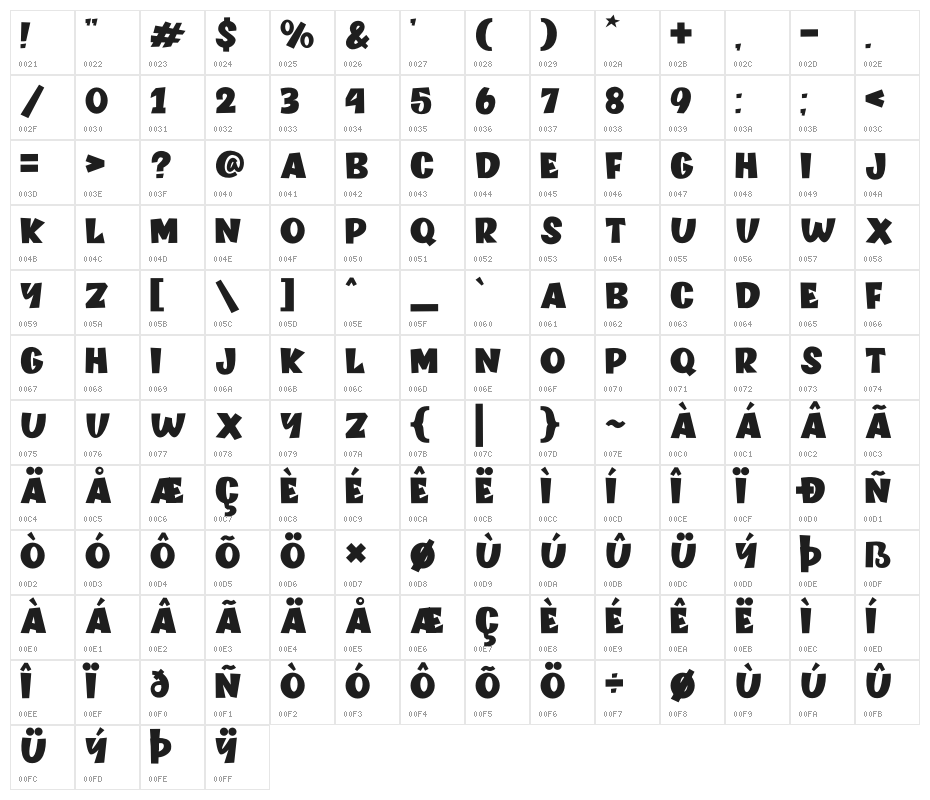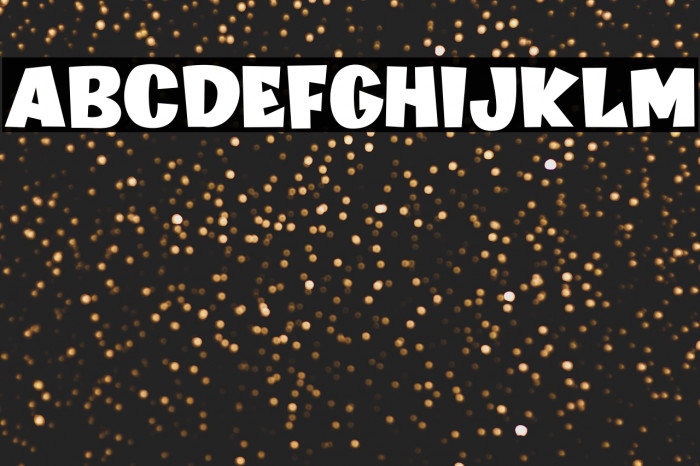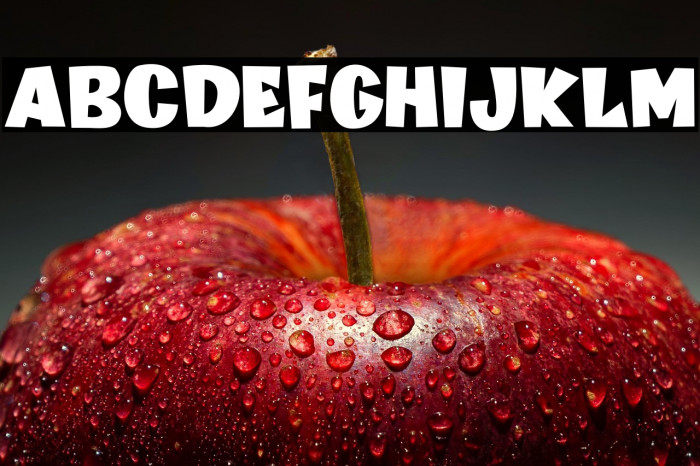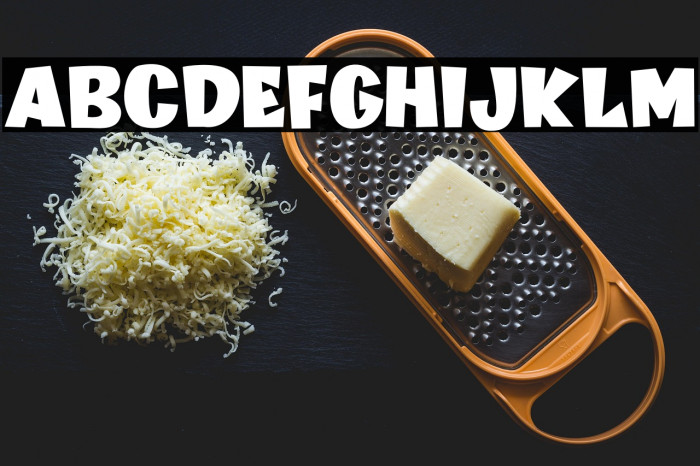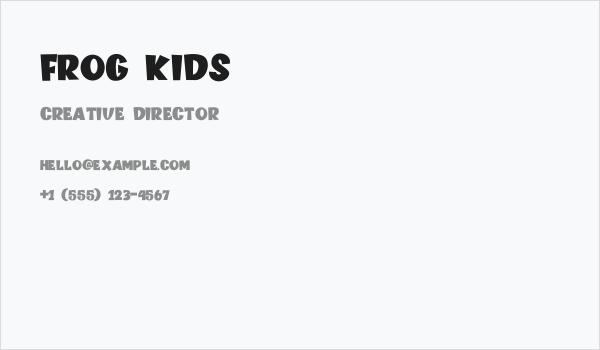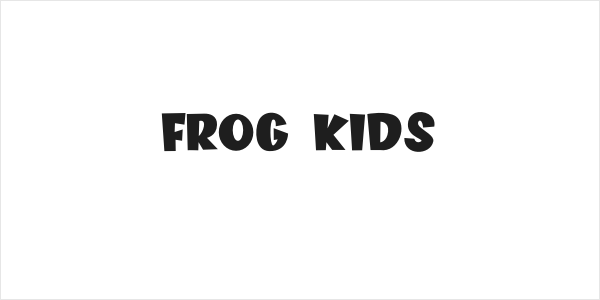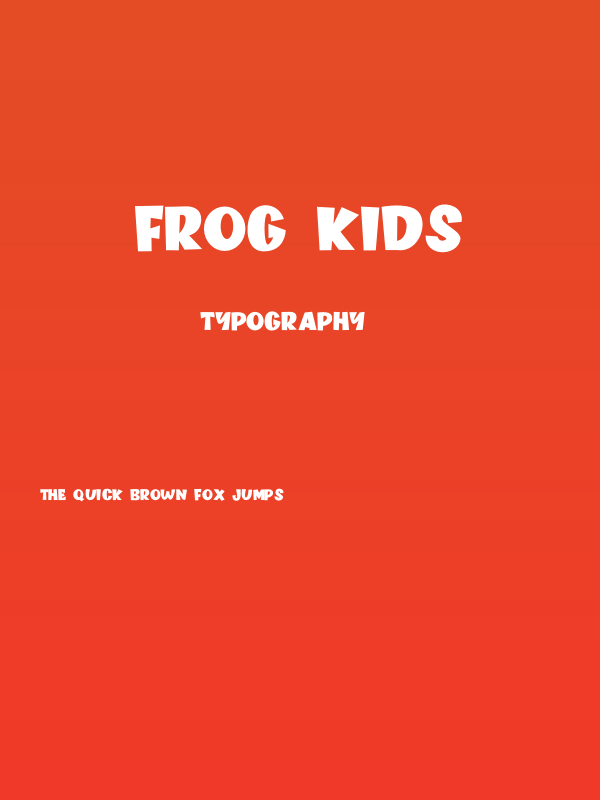
FROG KIDS Font
FROG KIDS Description
This playful and bold typeface features a chunky, whimsical design that captures attention with its exaggerated curves and thick strokes. The letters are slightly irregular, adding a fun and dynamic feel to the text. The uppercase and lowercase characters maintain a consistent style, with rounded edges and a lively appearance. The numbers and special characters follow the same playful theme, making this font ideal for projects that require a touch of humor and creativity. Its bold presence makes it suitable for children's materials, playful branding, and eye-catching headlines.
| Overall Style | Playful, Fun, Whimsical |
| Use Case | Headlines, Logos, Children's materials |
| Proposed Projects | Ideal for children's books, playful branding, eye-catching headlines, and creative posters. |